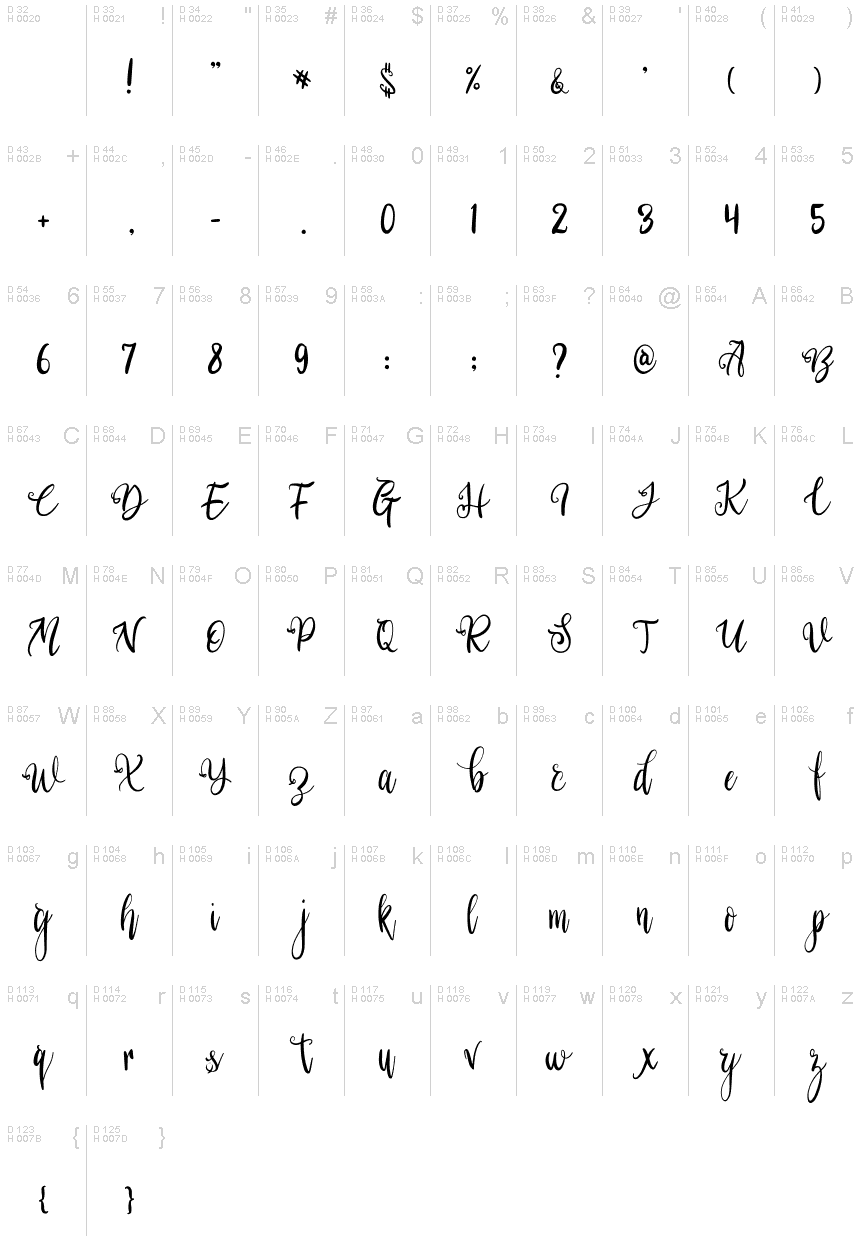
Before Sunset V1
Before Sunset is a stunning, semi-light, handwritten font designed by Omaikraf Studio. With its unique and artistic character, this font is sure to make any project stand out. The semi-condensed width makes it perfect for designs that require a more compact feel, such as title cards or book covers. Use Before Sunset for anything from vintage logos to wedding invitations to product packaging. Its versatility and eye-catching style will make your project pop and leave a lasting impression on your audience. Add some personality to your next design with Before Sunset!
Before Sunset is suitable for every craft projects such as print out design, embroidery, and so many more.